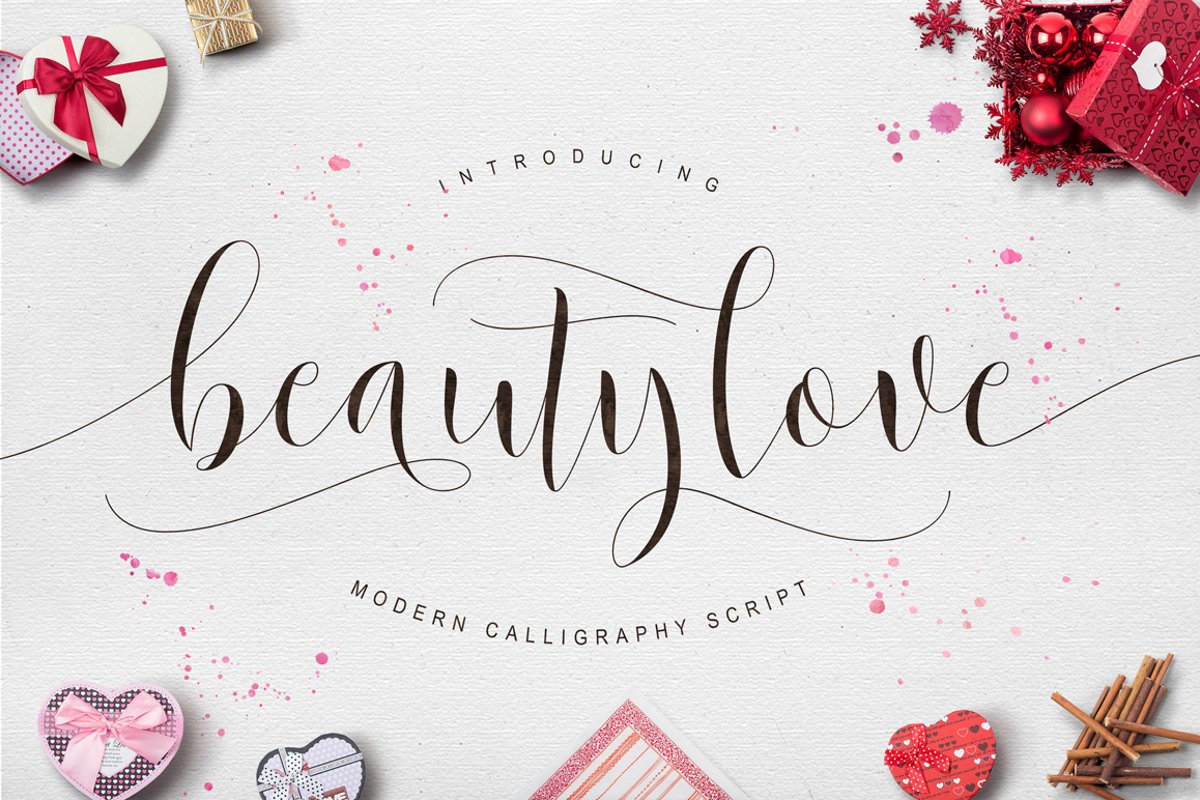
Beautylove Script
Introducing Beautylove Script
Beautylove Script is a new modern calligraphy Typeface Fonts collection from Ianmikraz studio, combines from copperplate to contemporary typeface, classic, beauty and elegant touch.
Beautylove Script features 300 glyphs and 118 alternate character contain with opentype features. Stylistic Alternates, Standart Ligature and more.You can access all those alternate characters by using OpenType savvy programs such as Adobe Illustrator, Adobe InDesign and CorelDraw X6-X7.
Beautylove Script is suitable for Apparel Brand, any greeting cards, Painting design style, or any design that needs natural and personal touch. Mix and match the alternate characters to add an attractive message to your design.
Features of Beautylove Script is;
- Swash Alternates
- Standart ligatures
- Stylistic Alternates
- Stylistic sets